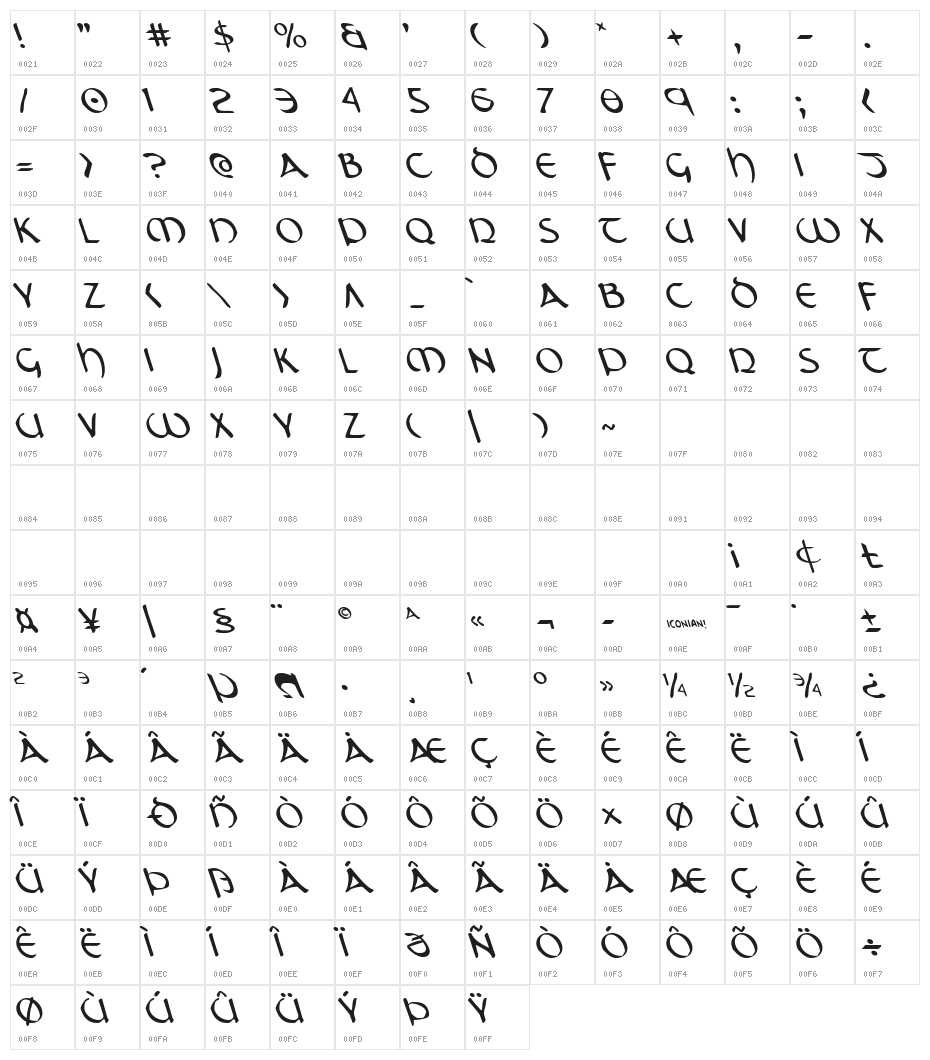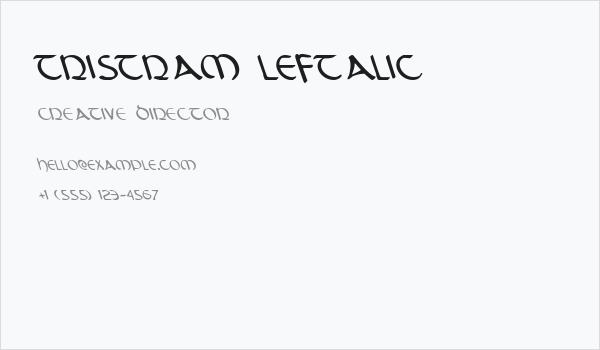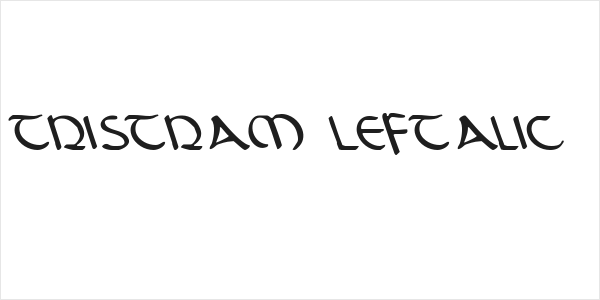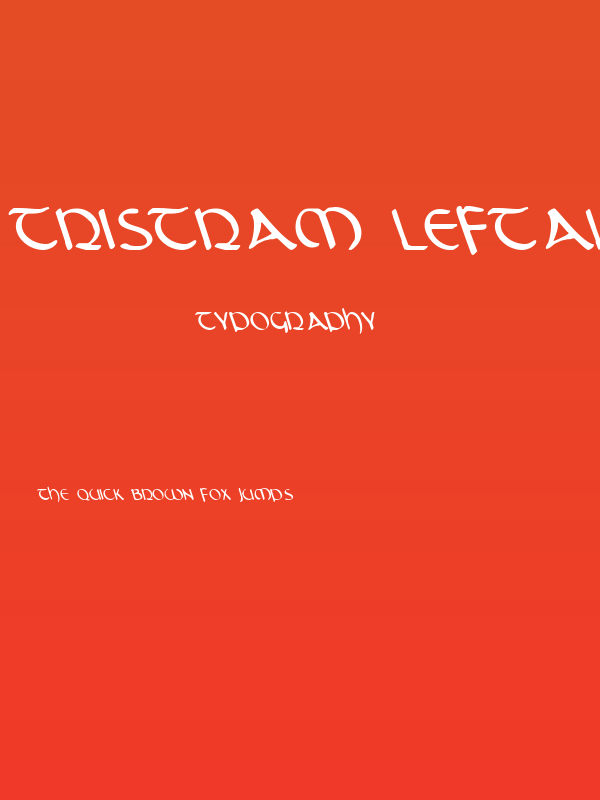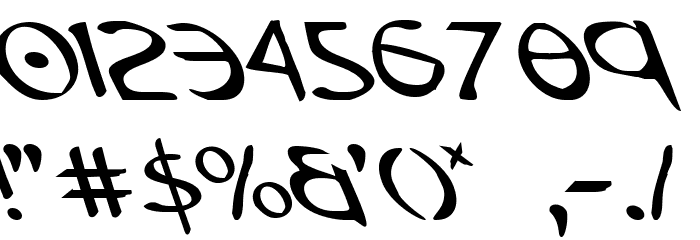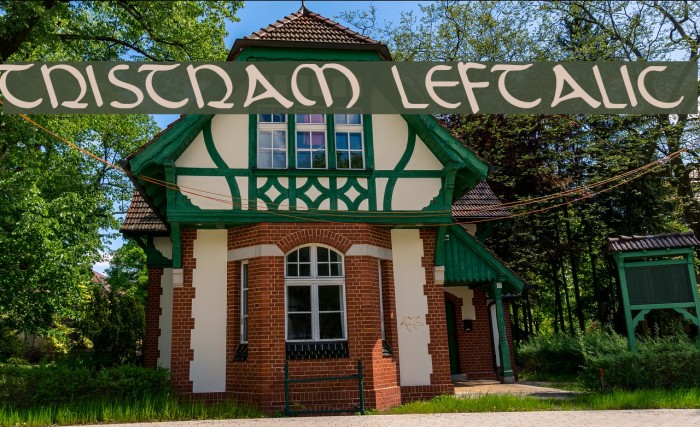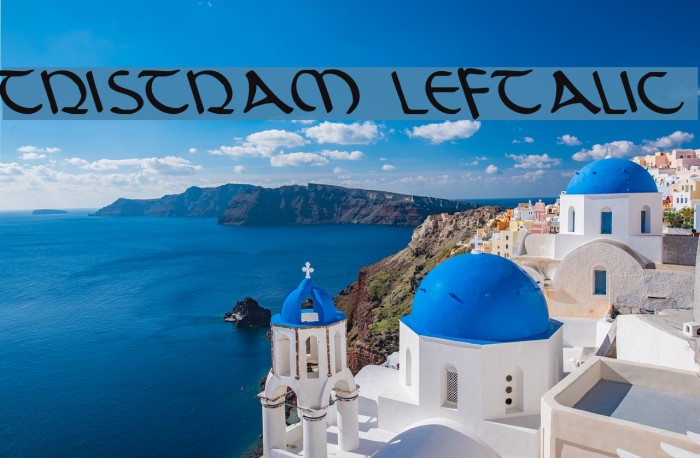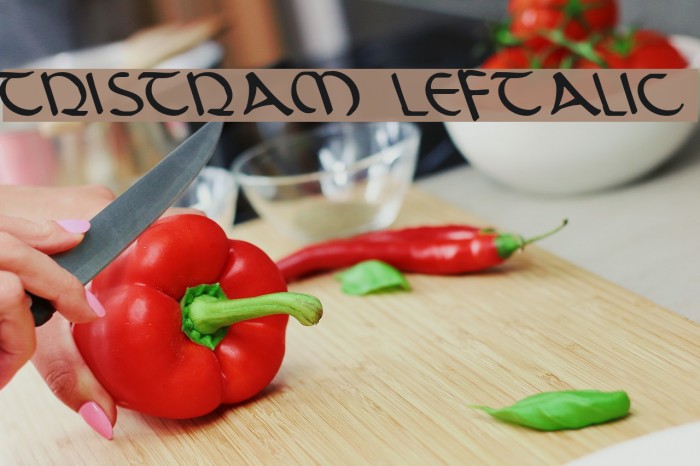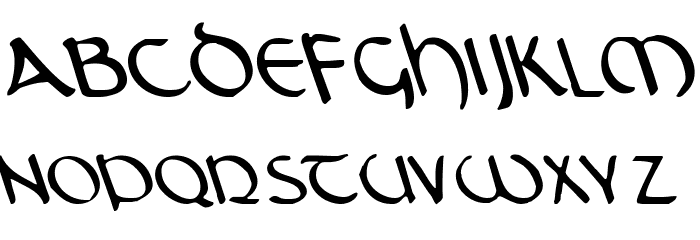
Tristram Leftalic Font
Tristram Leftalic Description
This font features a unique, flowing style with a leftward slant, giving it a dynamic and artistic appearance. The characters are bold and slightly condensed, with a playful yet sophisticated flair. The uppercase and lowercase letters maintain a consistent style, with rounded edges and smooth curves that create a sense of movement. The numerals and special characters follow the same design principles, ensuring a cohesive look across all glyphs. This font's distinctive style makes it suitable for creative projects that require a touch of elegance and individuality.
| Use Case | Logos, Headlines, Artistic projects |
| Proposed Projects | Ideal for branding, posters, invitations, and artistic projects that require a unique and elegant touch. |